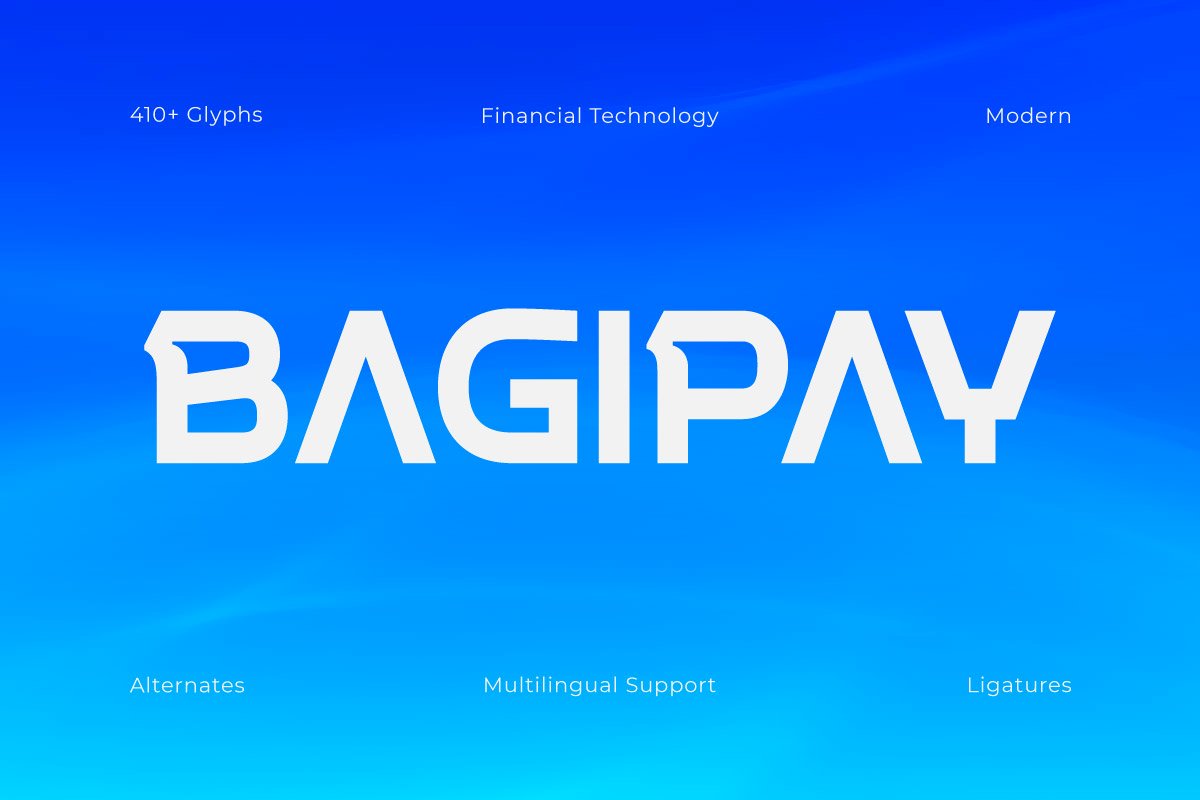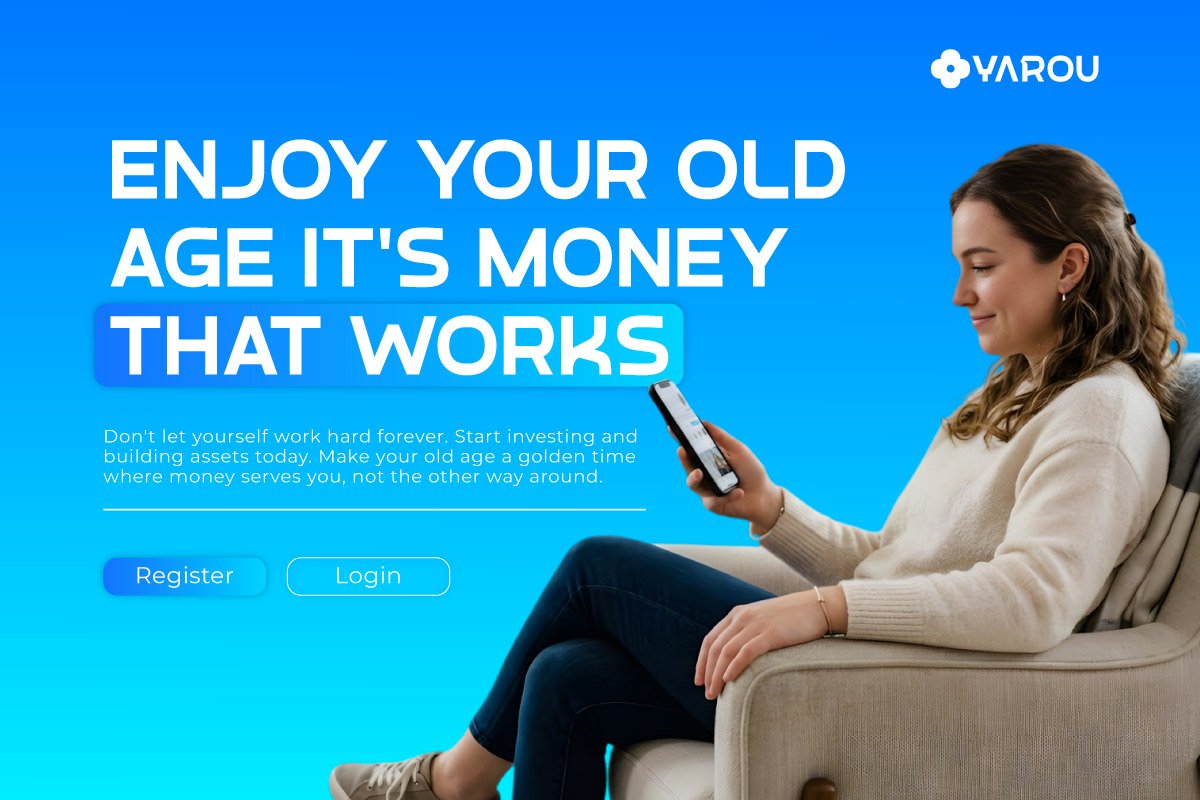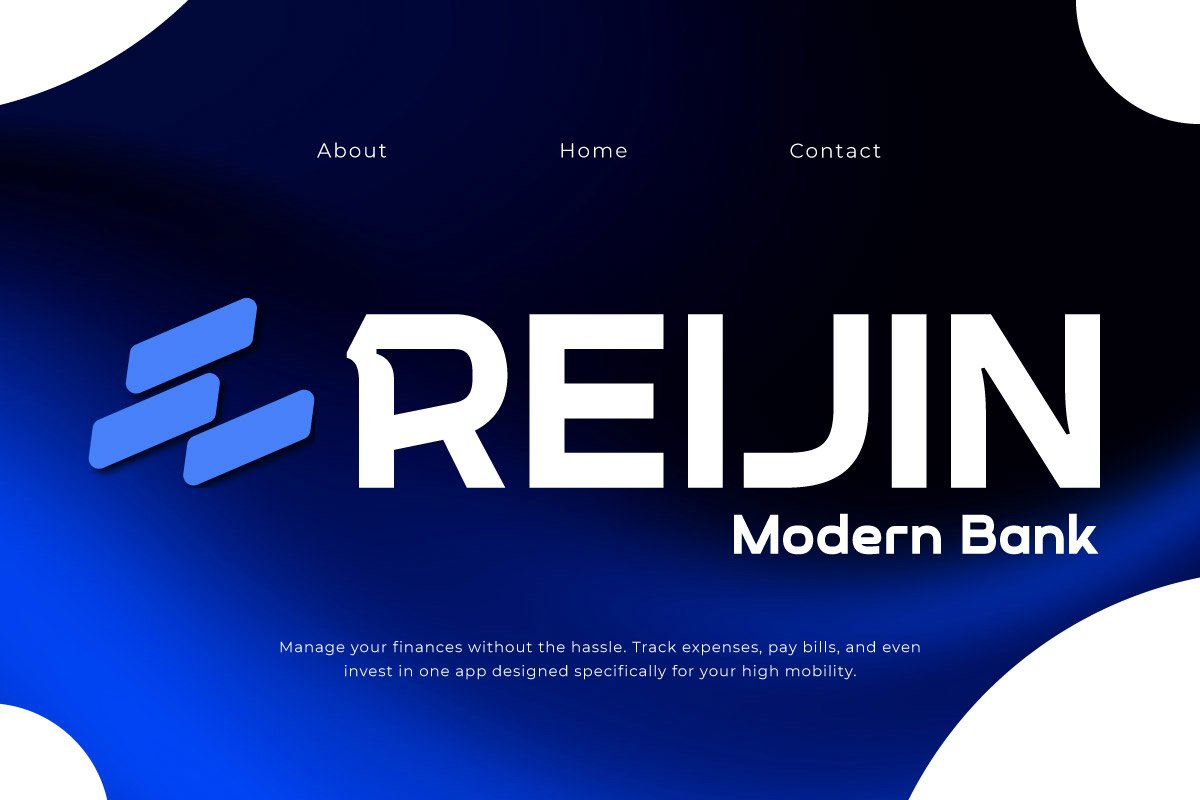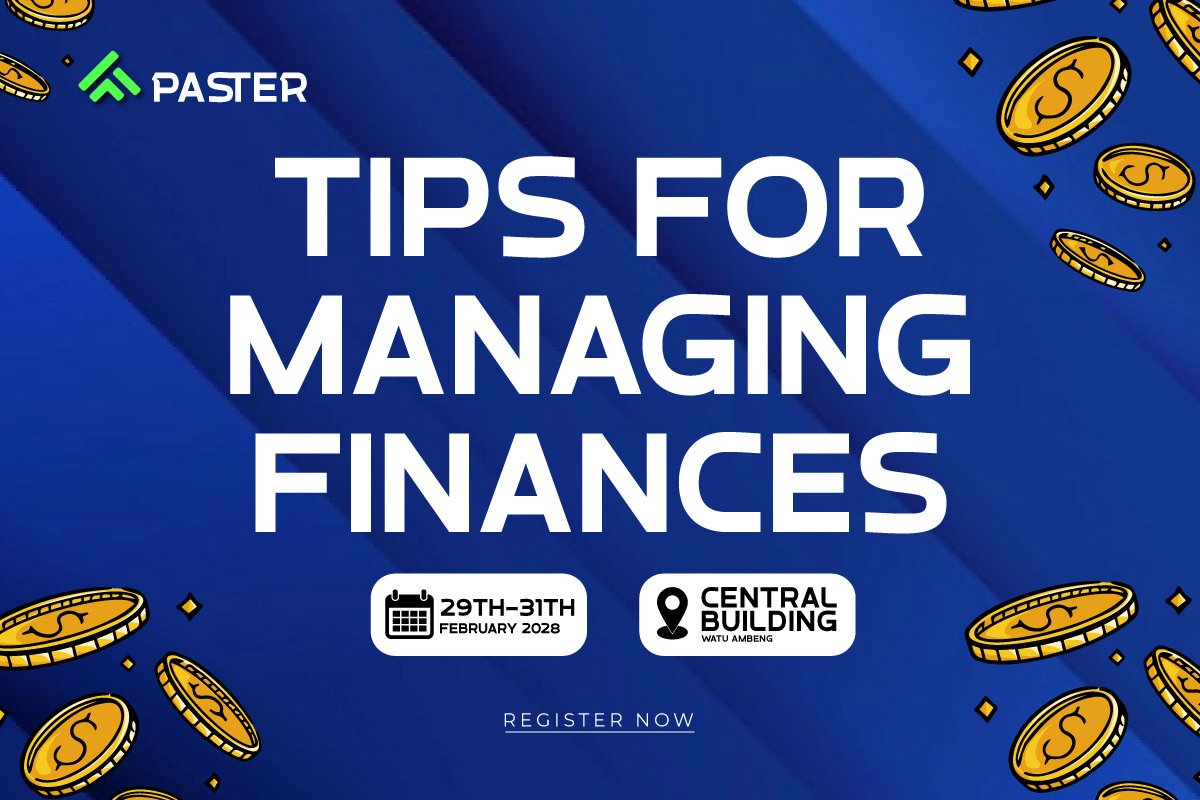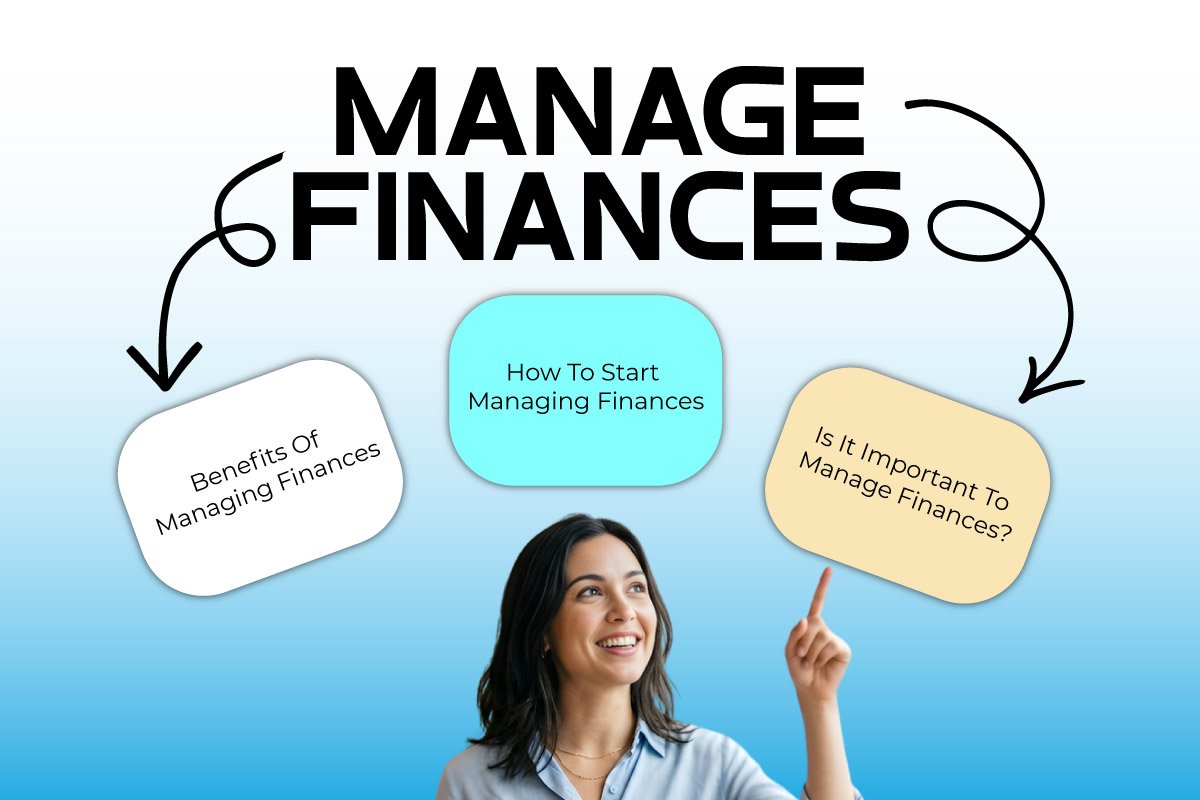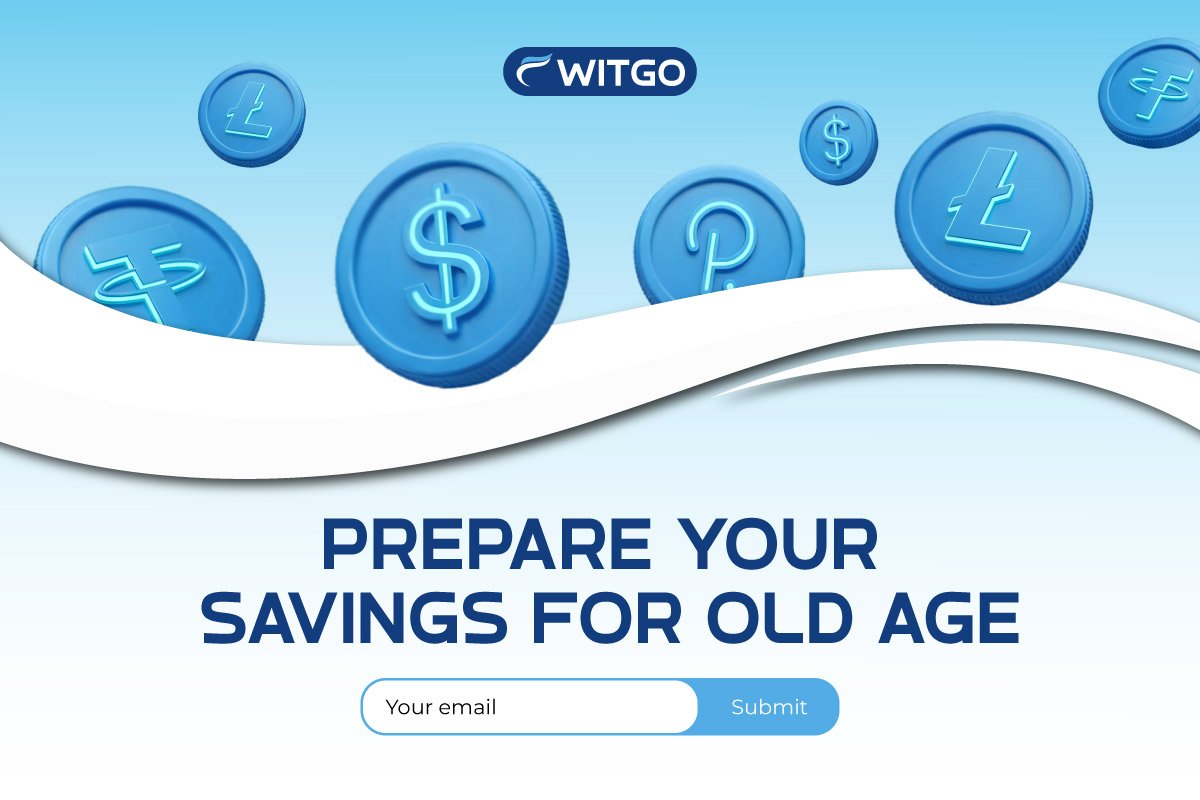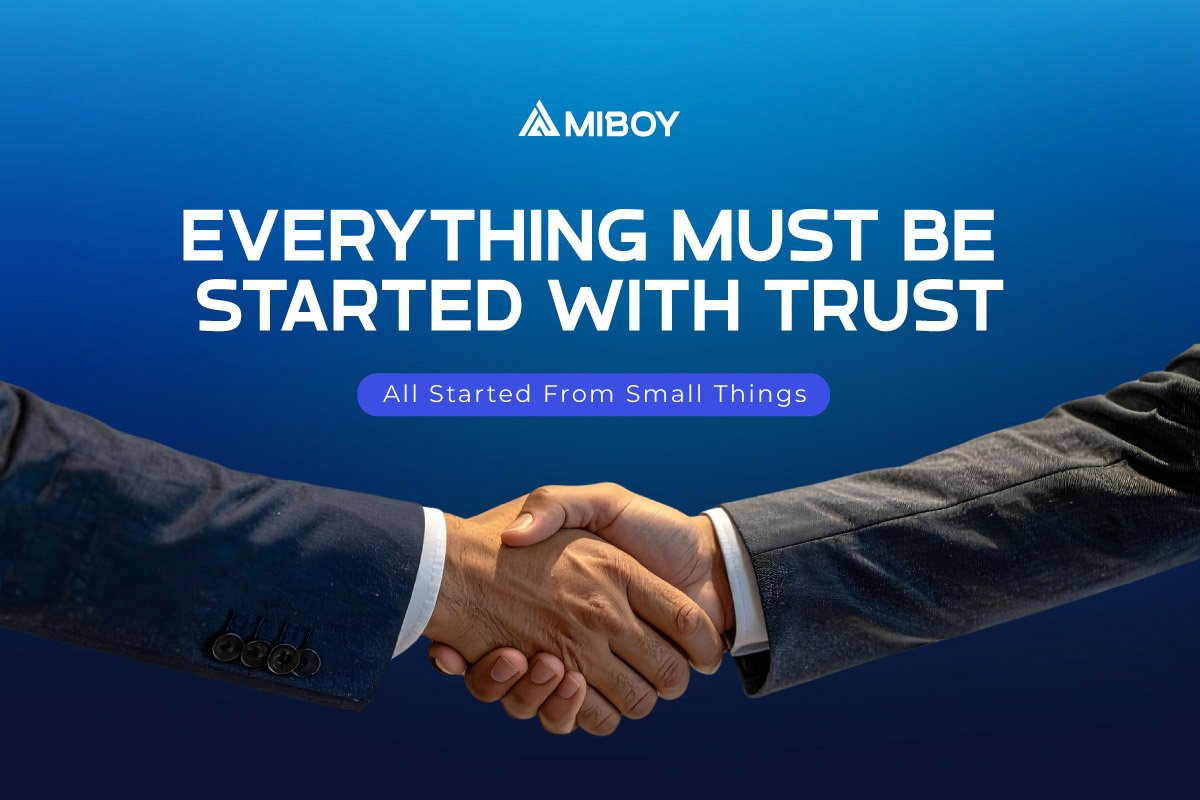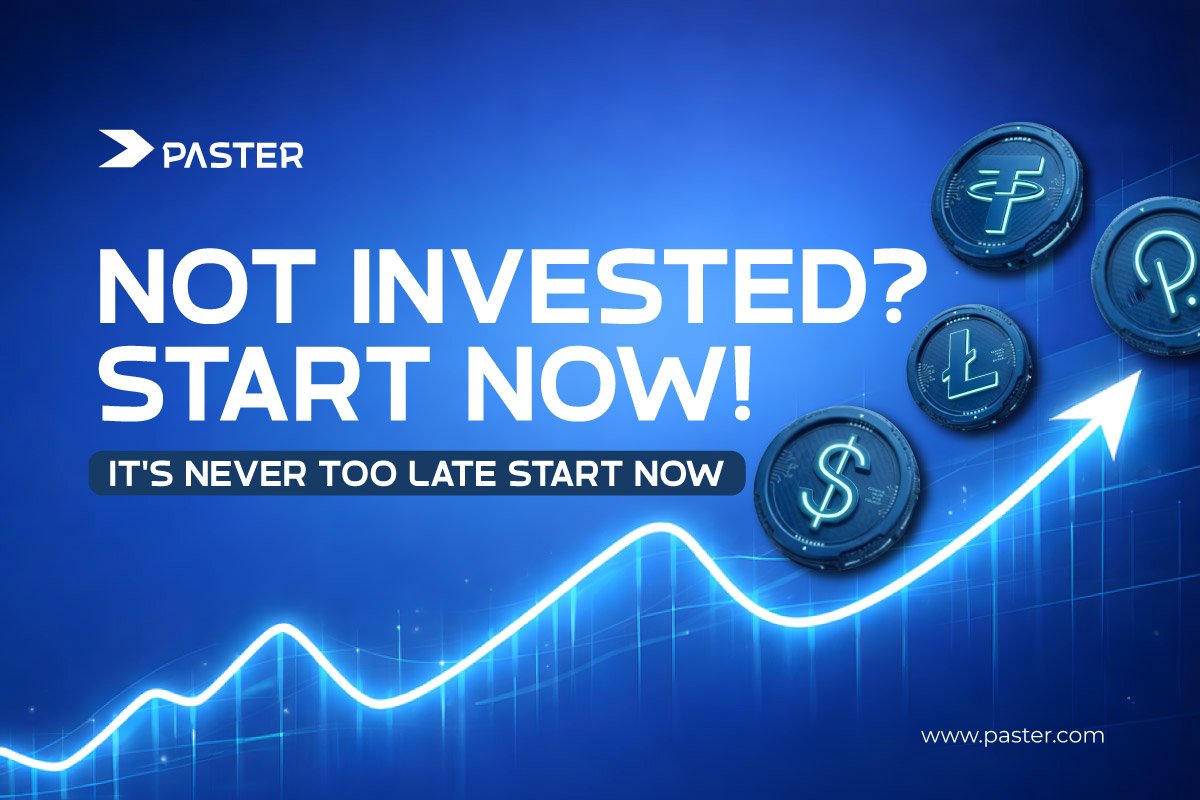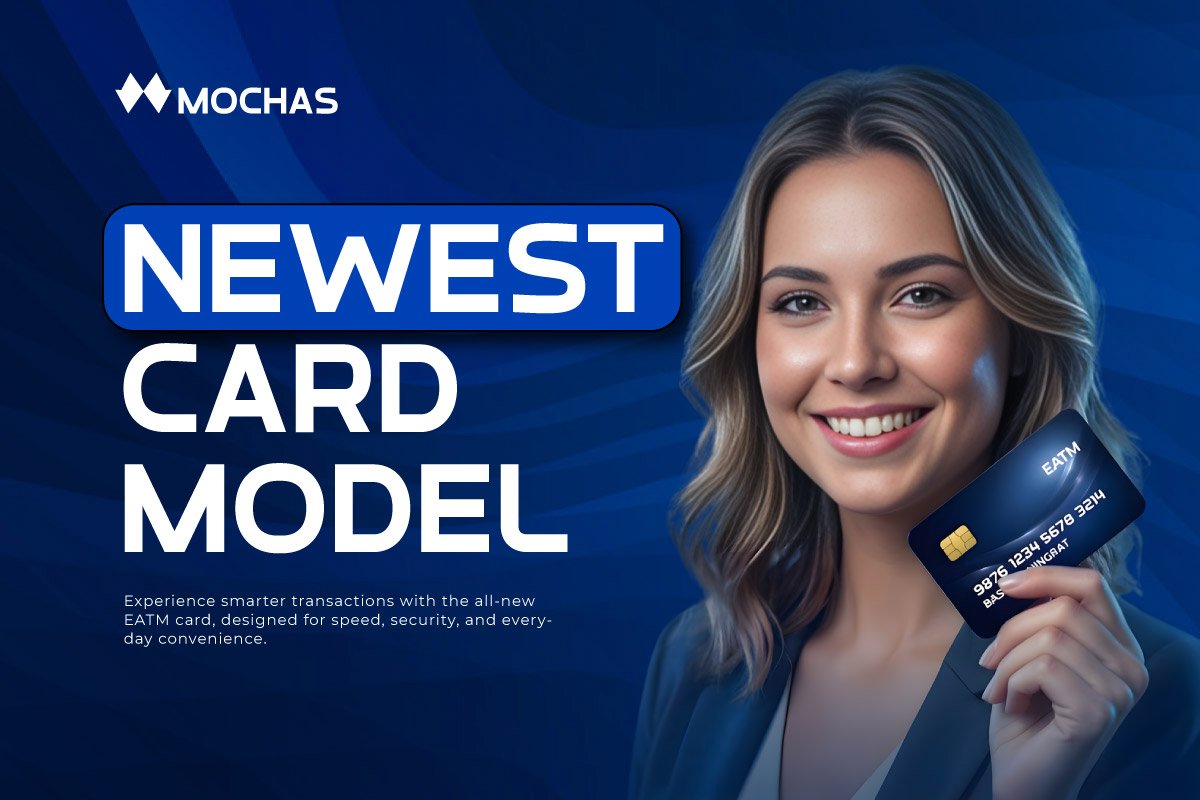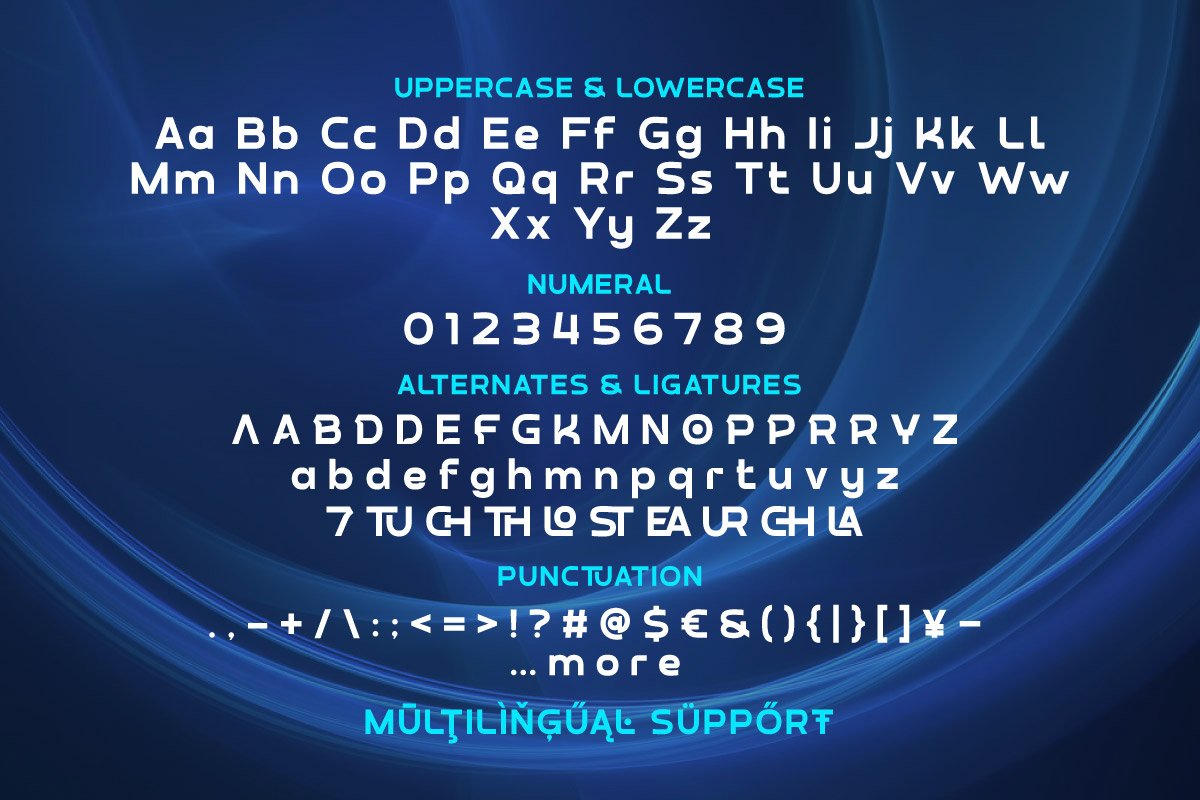
5. Bagipay – Financial Technology Font
Bagipay – Financial Technology Font
Bagipay is a Modern Sans Serif typeface specifically designed for the digital banking ecosystem and the Fintech industry. With its clean, geometric, and precise letterforms, this font delivers a professional and trustworthy impression. Its visual characteristics are ideal for building innovative yet functional visual identities for future financial platforms.
The design prioritizes technical functionality to support a seamless transaction UI experience. Inspired by Revolut’s minimalist aesthetic, Bagipay ensures high legibility for the app’s numbers and text, even at small sizes. This makes it a reliable solution for mobile dashboard elements, digital payment interfaces, and complex financial data graphs.
As a Modern Financial Ecosystem typography solution, Bagipay offers extensive flexibility for corporate branding, virtual debit cards, and dynamic UI/UX identity systems. Its balanced letter structure helps brands appear more credible and ready to face intense digital market competition. Bagipay is the right choice for creating a strong, secure, and technology-oriented visual impression.